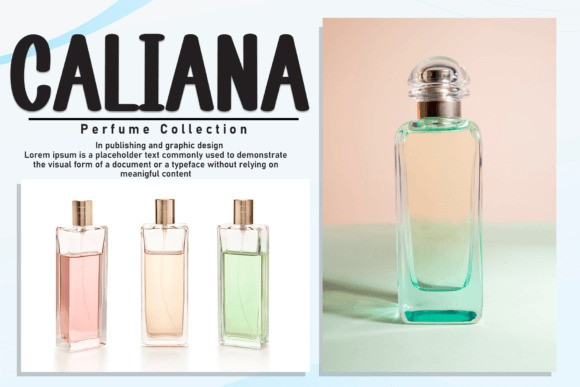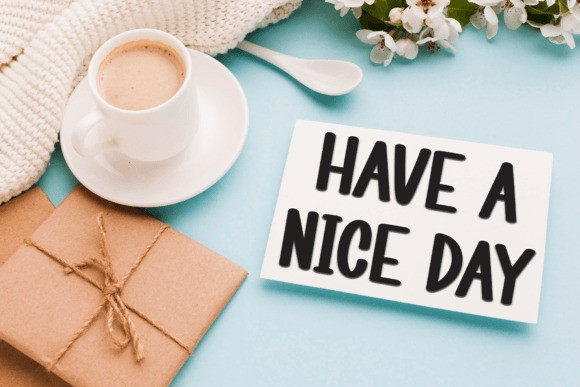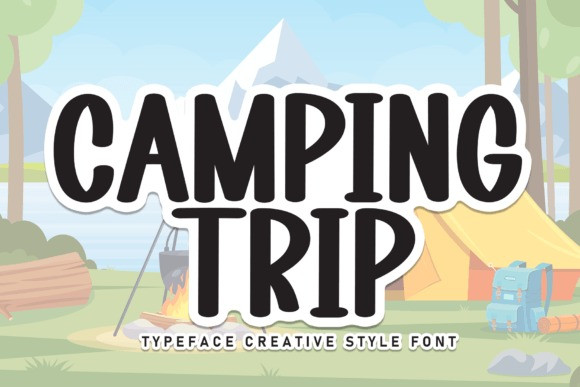
Camping Trip Font
Camping Trip Font is a sweet and friendly handwritten display font. Cute and fun, this font is ideal for writing wedding invitations, cards, or any other design that might need a fun touch!